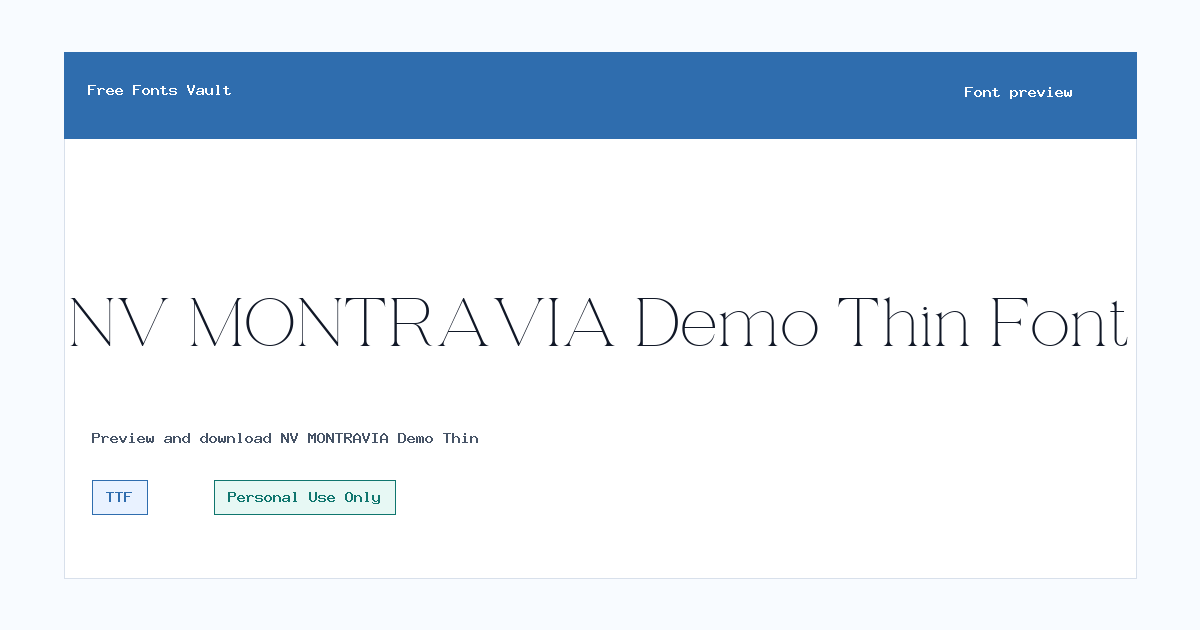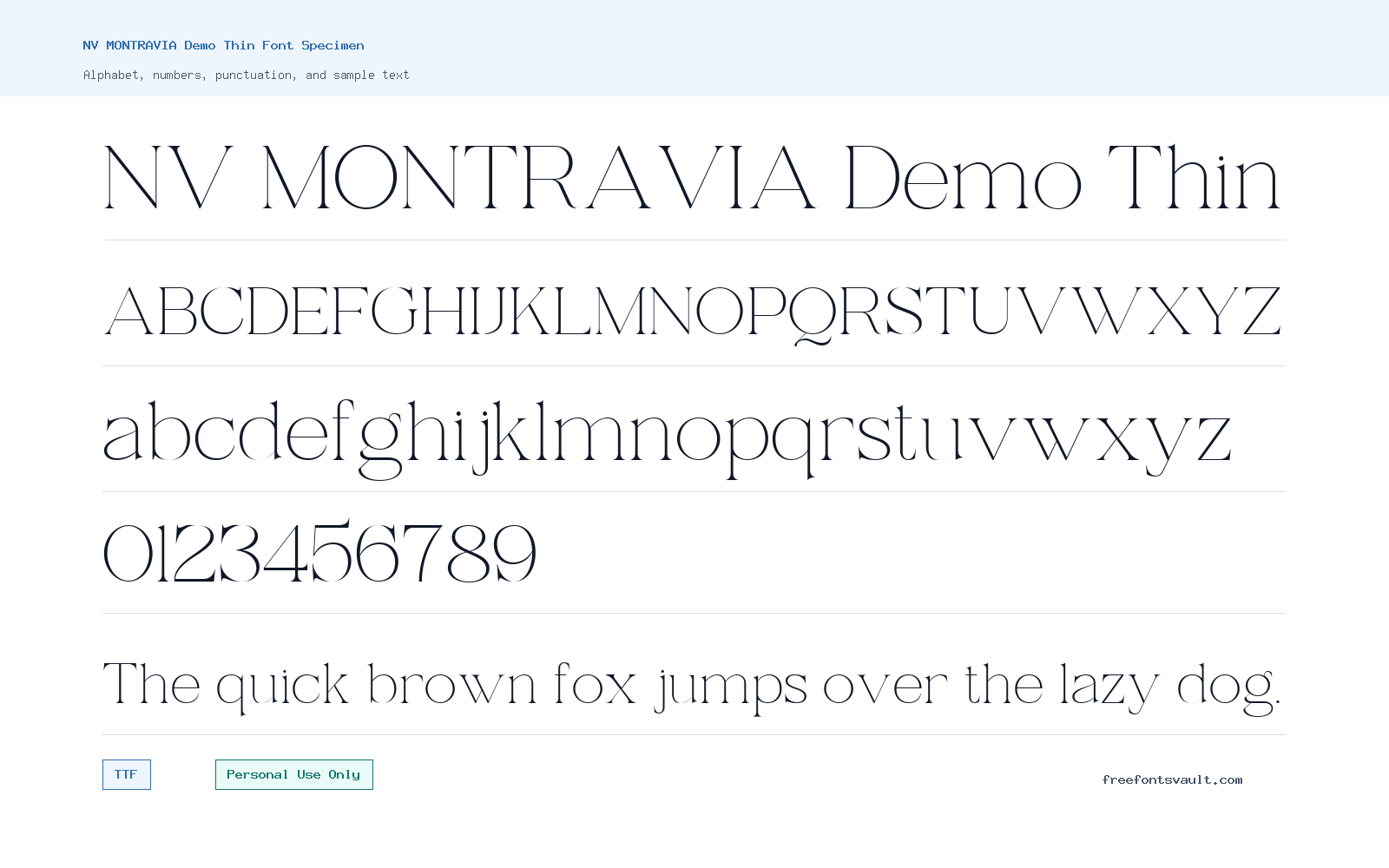
NV MONTRAVIA Demo Thin
NV MONTRAVIA Demo Thin font.
NV MONTRAVIA Demo Thin is a light, delicate serif font from NovaraType. It is best treated as a display-style option for personal projects where you want a refined, airy look without using heavy letterforms.
NV MONTRAVIA Demo Thin comes as a TrueType font file with a thin 100 weight and normal style. The name and license wording identify it as part of the NV Montravia Serif Font Family, so the safest description is a thin serif demo cut rather than a full commercial family package. Its light weight makes it most useful in places where the text can be shown large enough for the fine strokes to stay clear. Try it in title previews, editorial-style headings, mood boards, invitation concepts, poster drafts, fashion-style layouts, and branding mockups where elegance matters more than dense reading.
Because this is a thin font, spacing and contrast are worth testing before you commit to a design. Very light strokes can look beautiful in large headlines, but they may become faint on small screens, low-resolution previews, busy backgrounds, or pale color combinations. In the font preview, test uppercase words, short names, two-line titles, and a few punctuation-heavy samples. If you are exploring logo work, use it for early personal concepting and compare it at different sizes. Thin serif letters often need careful tracking, especially in short brand names or poster headlines where one tight pair can make the whole word feel uneven.
- Thin 100 weight for light, refined headline styling.
- Normal style regular variant, suitable for clean title and mockup testing.
- Serif family naming, useful for elegant editorial, poster, and logo concept directions.
- Large headlines and title treatments
- Poster drafts and event graphics for personal projects
- Logo and wordmark concept mockups before licensing
- Fashion, beauty, wedding, or editorial-style layout tests
- Website hero mockups where the text is large and high contrast
- Mood boards, presentation slides, and personal portfolio experiments
Use NV MONTRAVIA Demo Thin at larger sizes with strong contrast. Pair it with a simple sans serif for body text so the thin serif can stay focused on headings, names, or short display lines. Avoid using it for long paragraphs, small captions, dense menus, or text placed over detailed images unless you increase size, spacing, and contrast. For web mockups, check how the fine strokes render on both desktop and mobile previews before choosing it as a main title style.
What type of font is NV MONTRAVIA Demo Thin?
It is identified as a thin serif demo font. The available file is a regular-style TrueType font with a 100 weight.
Is this font good for body text?
It is better for large display text than long reading. The thin weight may become hard to read in small sizes or low-contrast layouts.
What should I pair with NV MONTRAVIA Demo Thin?
Pair it with a clean sans serif for paragraphs, captions, and interface text. Let NV MONTRAVIA Demo Thin handle short titles or feature words.